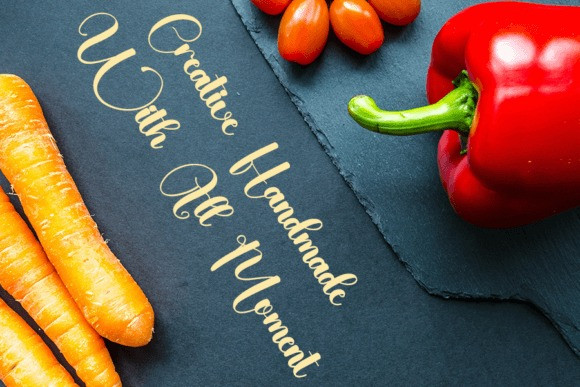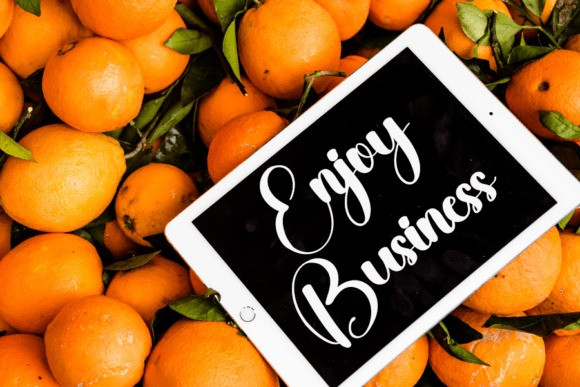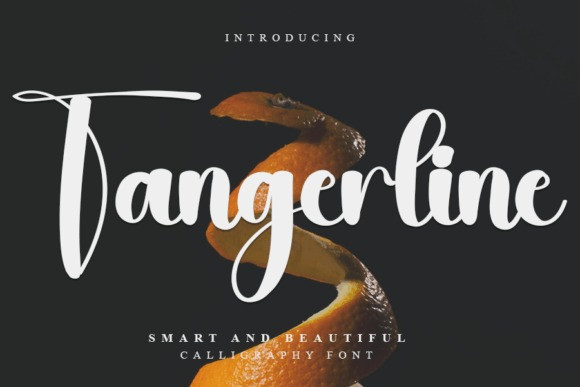
Tangerline Font
Tangerline Font is a beautiful and refined handwritten font. Classy and modern, it is perfect for logos, branding, invitations, stationery, wedding designs, social media posts, and much more!